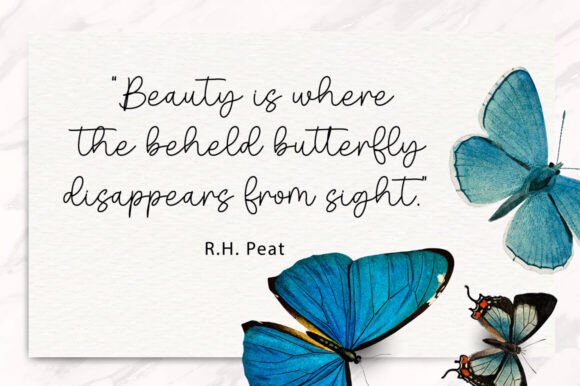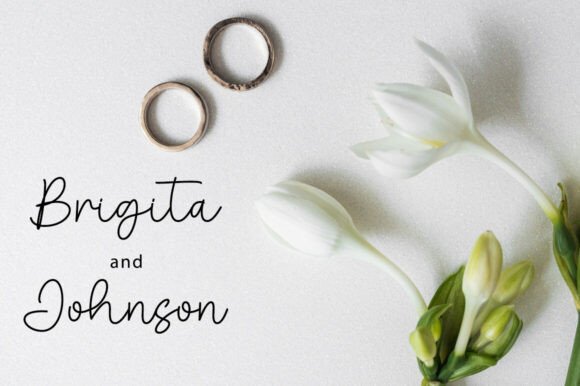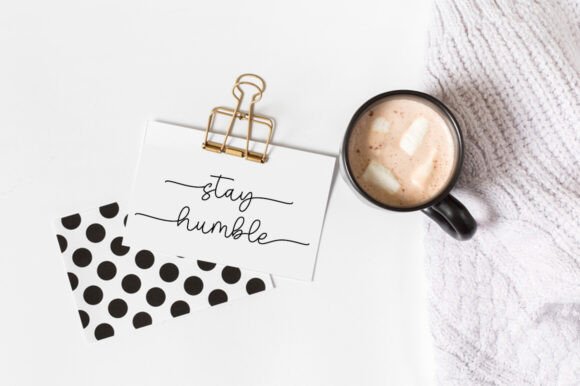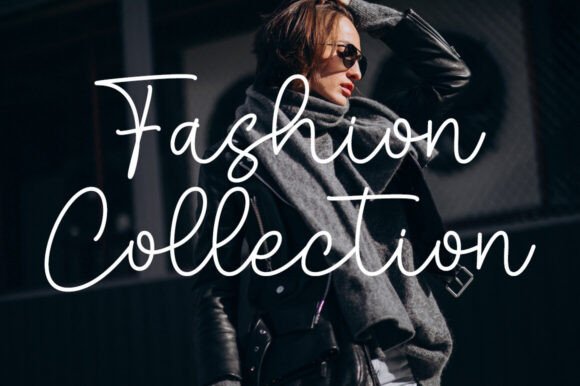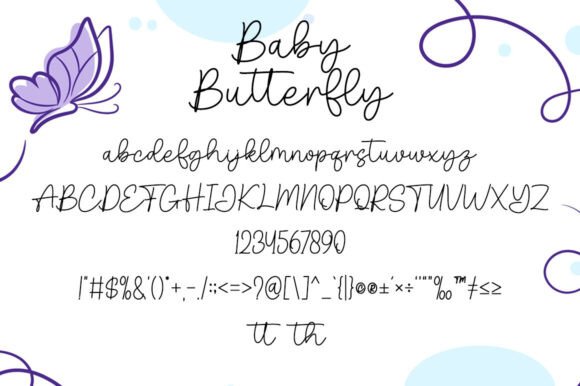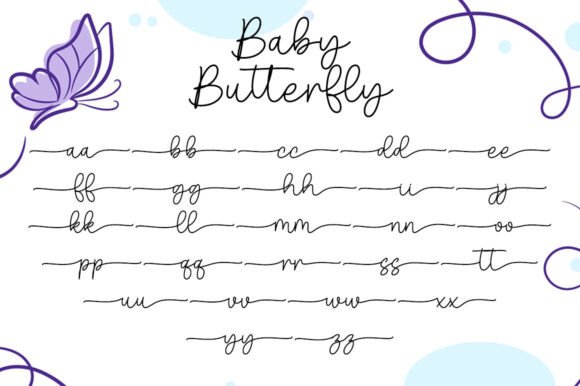
The Perfect Touch: Unveiling the Baby Butterfly Font
Have you ever been brainstorming a design project, flipping through font options, and suddenly, a spark of creativity hits? It’s as if the perfect font just appears out of thin air, and you know exactly how to bring your vision to life. For many designers, that moment is what makes all the hard work worth it.
That’s exactly what the Baby Butterfly Font is designed to evoke – a sense of whimsy and playfulness. This sweet and friendly handwritten font is perfect for adding a touch of fun to wedding invitations, cards, or any other design that needs a little extra charm. Its value lies in its versatility and ability to elevate even the simplest of designs into something truly special.
Baby Butterfly Font Key Features
- Size: The font comes in 4 different sizes: 48pt, 64pt, 96pt, and 128pt
- Resolution: Supports high-resolution displays, ideal for digital use
- Unique Characteristics: Hand-drawn, whimsical design with a touch of elegance, perfect for children’s books, nursery decor, and other playful applications
- Language Support: Supports a wide range of languages, including Latin, Cyrillic, and Greek
- Font Style: Includes both uppercase and lowercase letters, numbers, and punctuation marks
Baby Butterfly Font Review
As a designer, I was excited to dive into the Baby Butterfly Font, and overall, I found it to be a sweet and charming addition to any design project. ✨ The font’s whimsical feel and delicate lines make it perfect for projects that require a touch of innocence and playfulness.
- ✨ The font’s unique and playful feel is sure to add a personal touch to any design project.
- ✨ The Baby Butterfly Font comes in a range of weights and styles, making it easy to find the perfect fit for your design needs.
- ✨ The font is highly customizable, allowing you to adjust the size, color, and spacing to suit your design aesthetic.
However, as with any font, there are some limitations to consider. ⚠️ The Baby Butterfly Font may not be the best choice for projects that require a more serious or professional tone, as its playful feel may come across as too childish.
Overall, I would recommend the Baby Butterfly Font for projects that require a touch of whimsy and playfulness. While it may not be the best choice for every project, its unique feel and high level of customization make it a great addition to any designer’s toolkit.
The Baby Butterfly Font is perfect for:
- Wedding stationery and invitations.
- Infant and toddler product branding.
Remember to pair the Baby Butterfly Font with a clear and legible font for better readability.
Alternatives to Baby Butterfly Font
Great Vibes Font is a beautiful, handwritten script font perfect for creating a whimsical and dreamy atmosphere. It’s ideal for use in wedding invitations, greeting cards, and other decorative designs. Compared to Baby Butterfly Font, Great Vibes Font has a more elegant and refined feel, with more intricate details and flourishes.
Carolyna Pro Font is a modern, elegant script font that’s perfect for creating a sophisticated and luxurious feel. It’s ideal for use in branding, packaging, and advertising designs. Compared to Baby Butterfly Font, Carolyna Pro Font has a more polished and refined look, with a wider range of styles and variations.
Alex Brush Font is a beautiful, handwritten script font that’s perfect for creating a personal and emotive atmosphere. It’s ideal for use in greeting cards, invitations, and other decorative designs. Compared to Baby Butterfly Font, Alex Brush Font has a more rustic and handmade feel, with a more relaxed and casual tone.
Pacifico Font is a beautiful, elegant script font that’s perfect for creating a beachy and laid-back atmosphere. It’s ideal for use in branding, packaging, and advertising designs. Compared to Baby Butterfly Font, Pacifico Font has a more modern and minimalist feel, with a wider range of styles and variations.
Q: Can I customize the Baby Butterfly Font to fit my project’s needs?